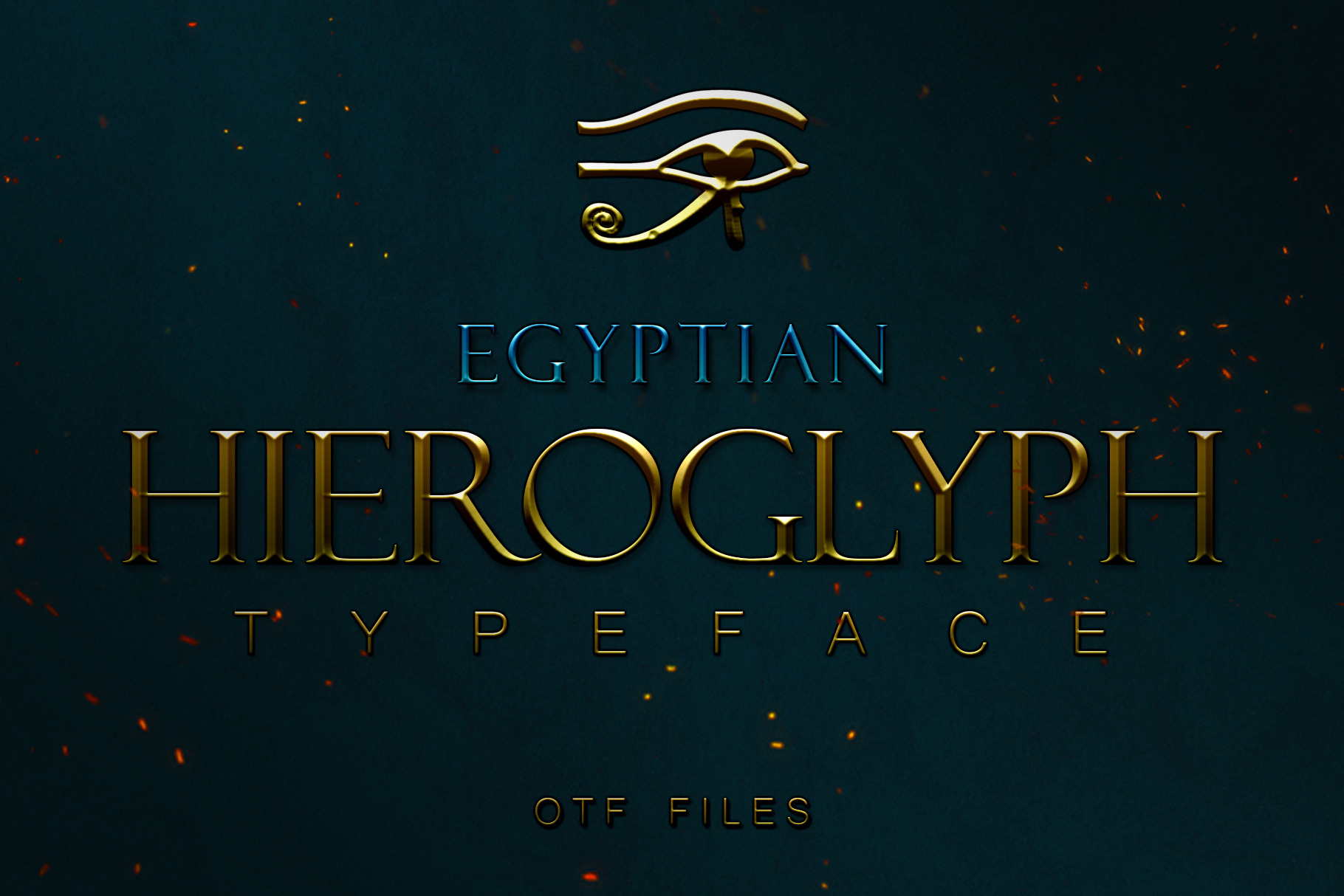
Egyptian Hieroglyph Typeface
This unique hieroglyph typeface is a font based on the Egyptian alphabets. This typeface is perfect for logos, monograms, titles, and posters. Ancient Egyptian is a difficult language to translate so this typeface - although as accurate as possible - is by no means a perfect translating tool.